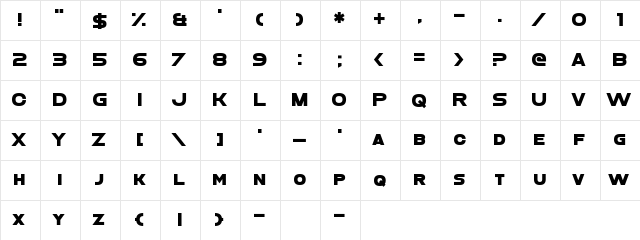
Vegan Abattoir Regular
| Designer | NAL |
Design Context for Vegan Abattoir Typeface
Vegan Abattoir is a composed and adaptable typeface that performs quietly and consistently across a wide range of design contexts.
Pro Tip: Use Vegan Abattoir in both headline and body roles to test its range before committing to a single application.